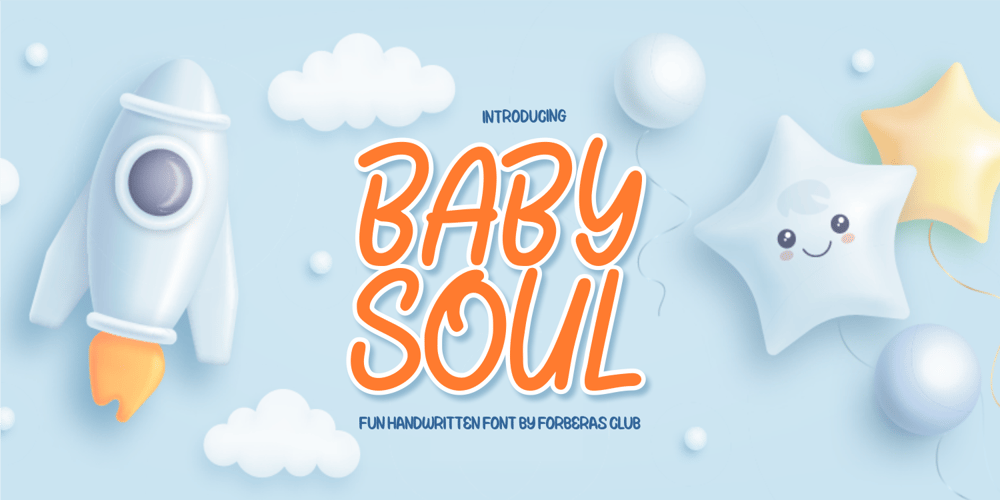
Baby Soul Font Family was designed by ANGGI HERMAWAN and published by Forberas Club. Baby Soul contains 1 styles and family package options. Baby Soul made for something interesting and excited. You can use this font for your party or cute moment. Cheers